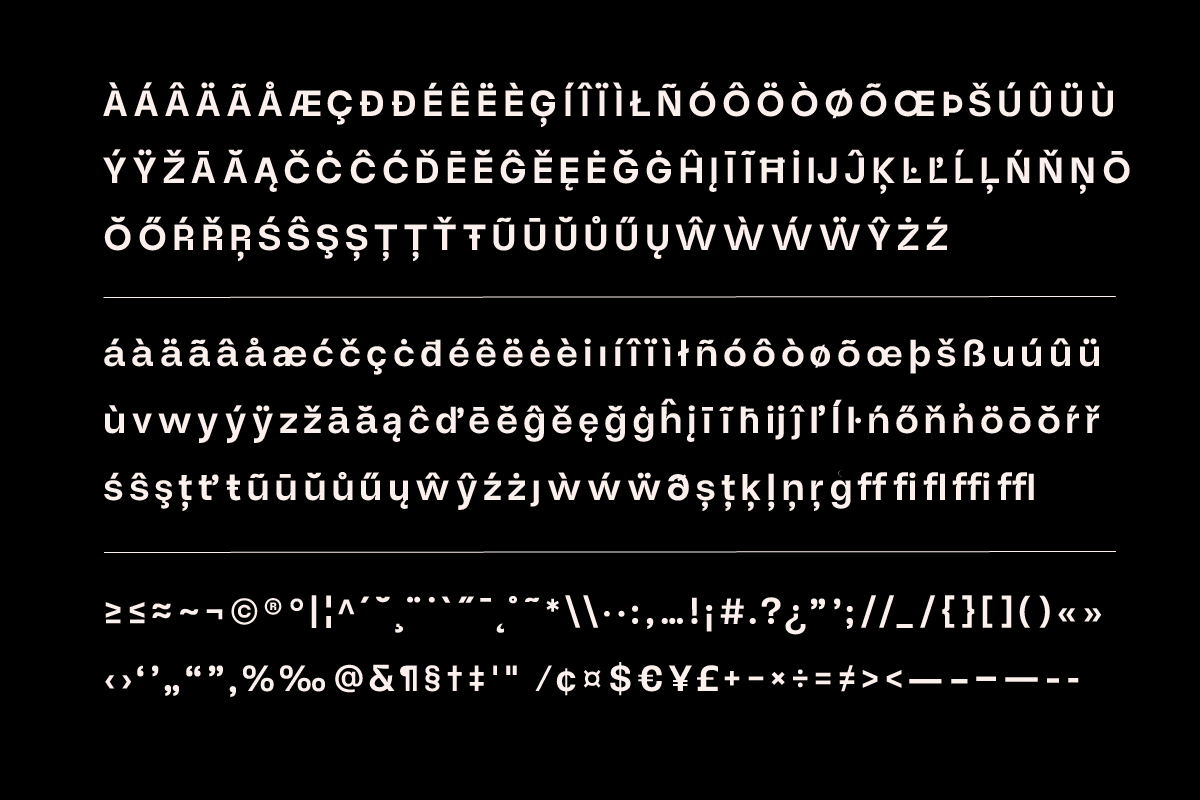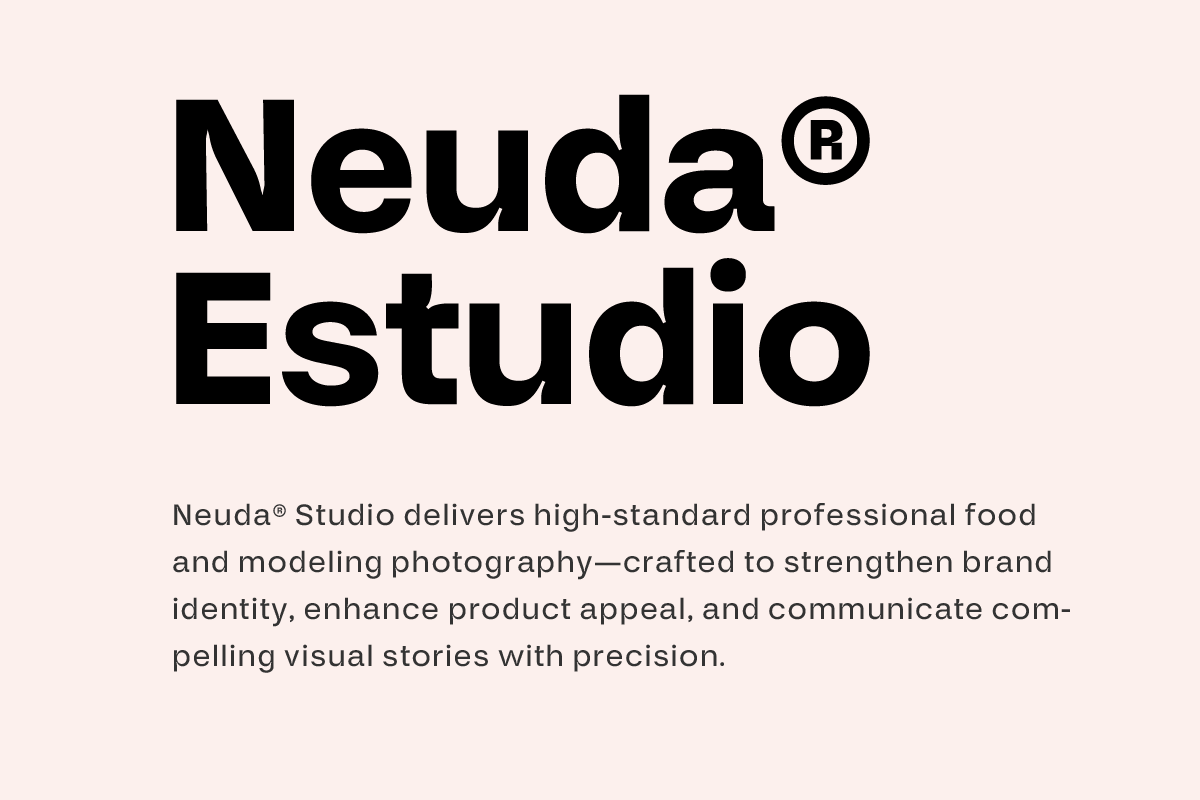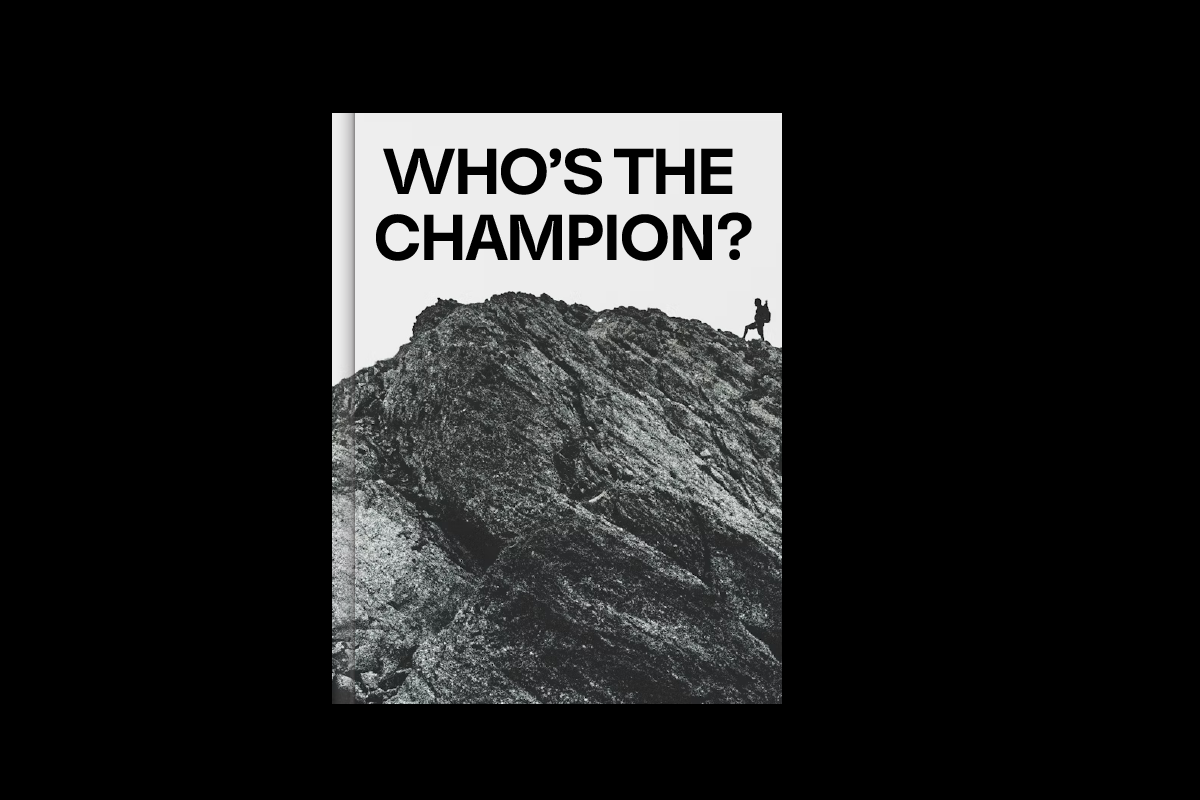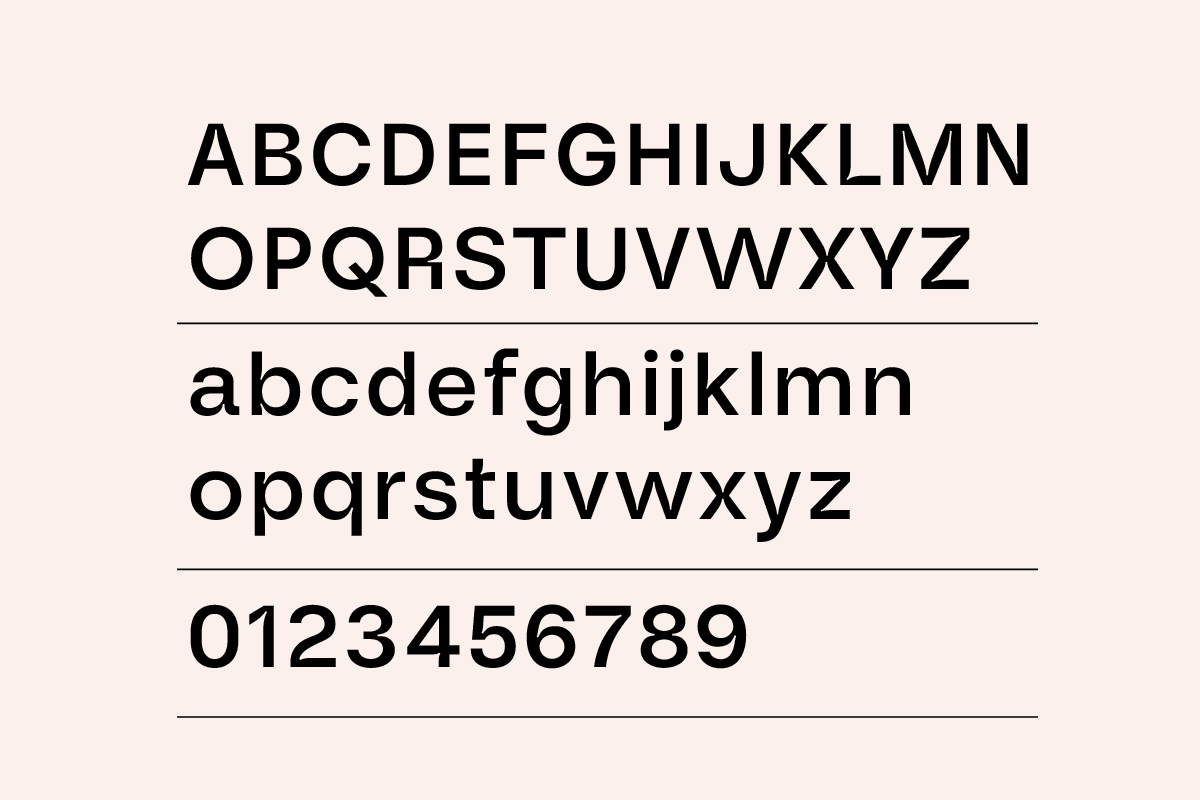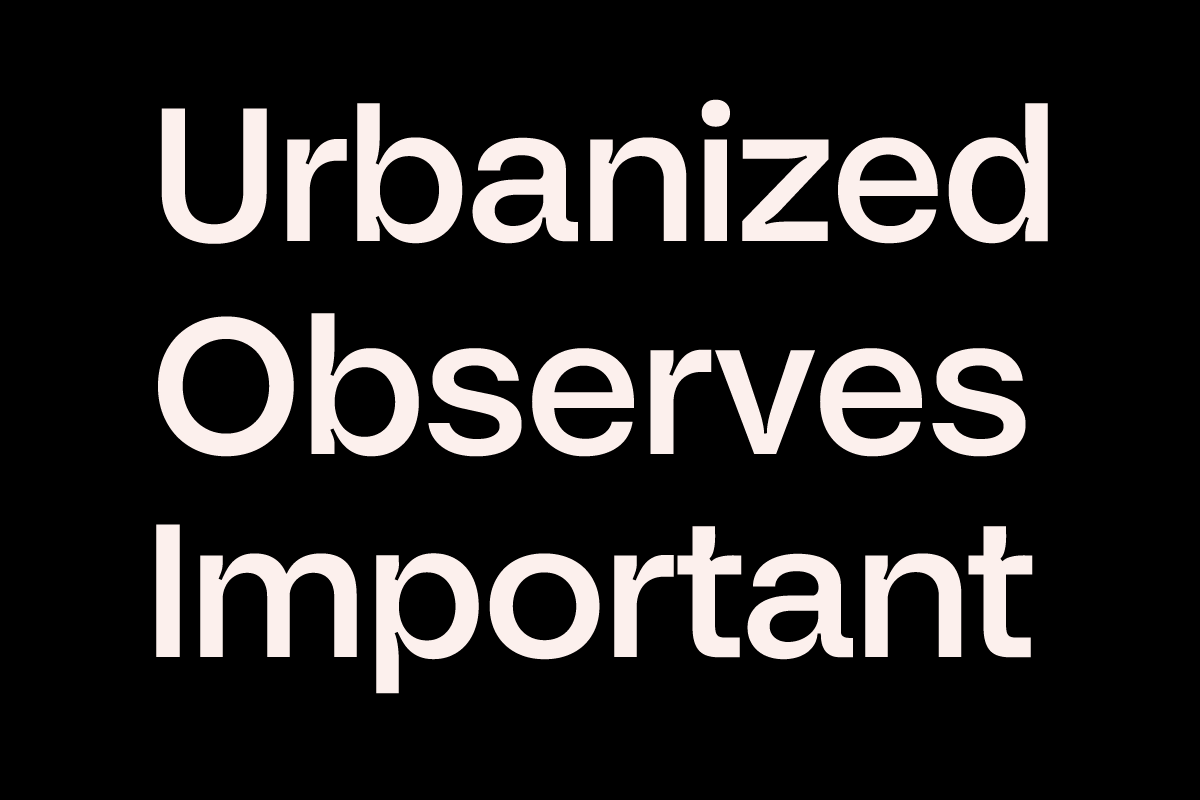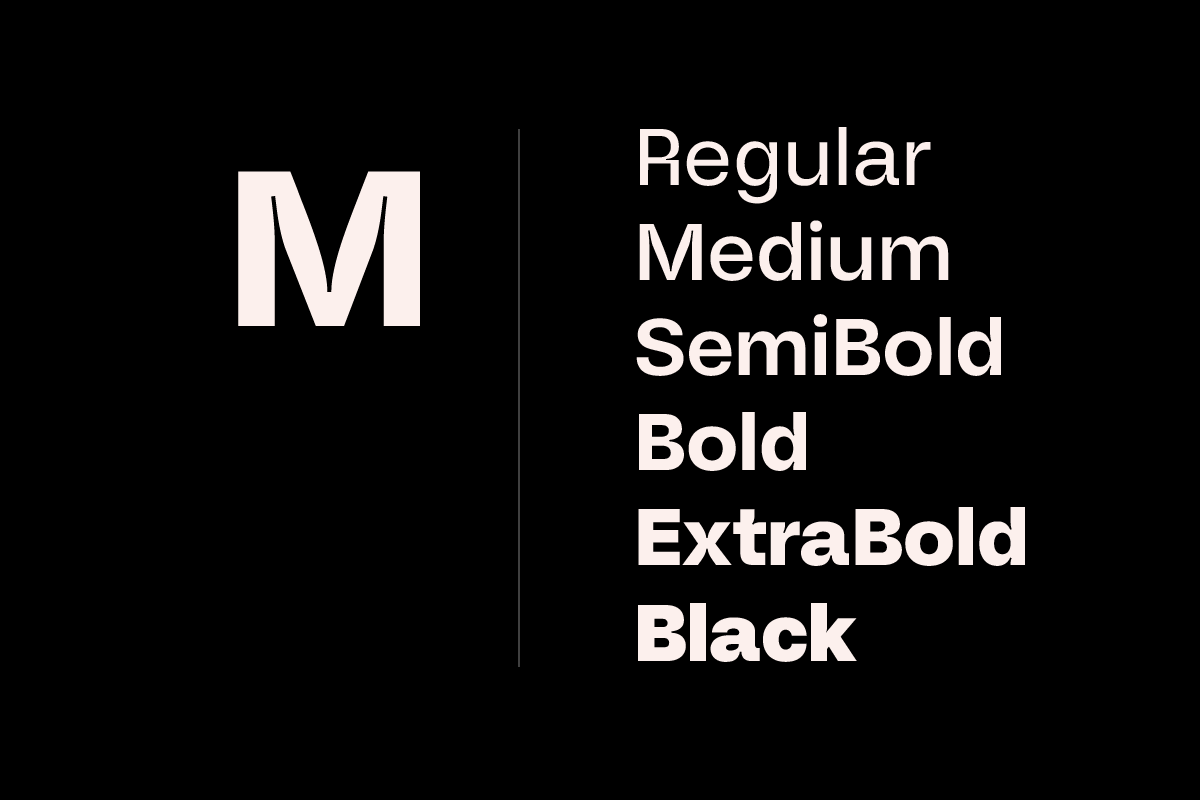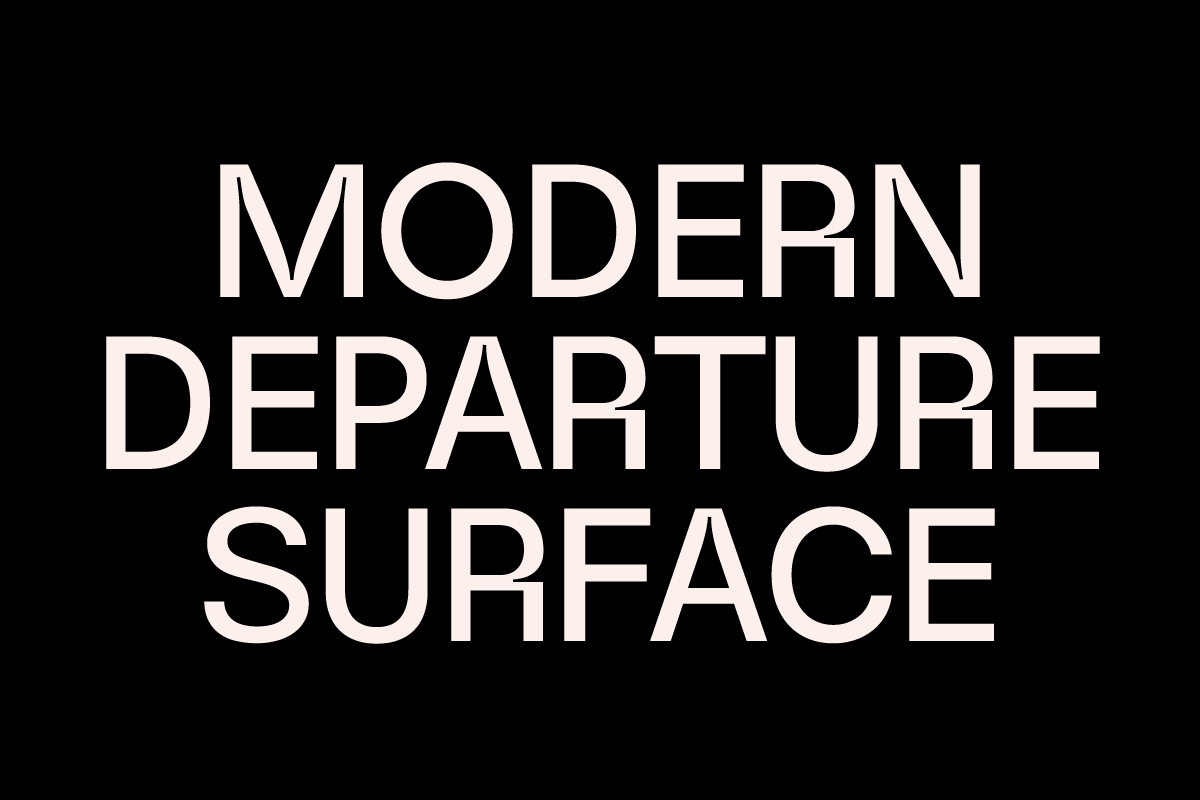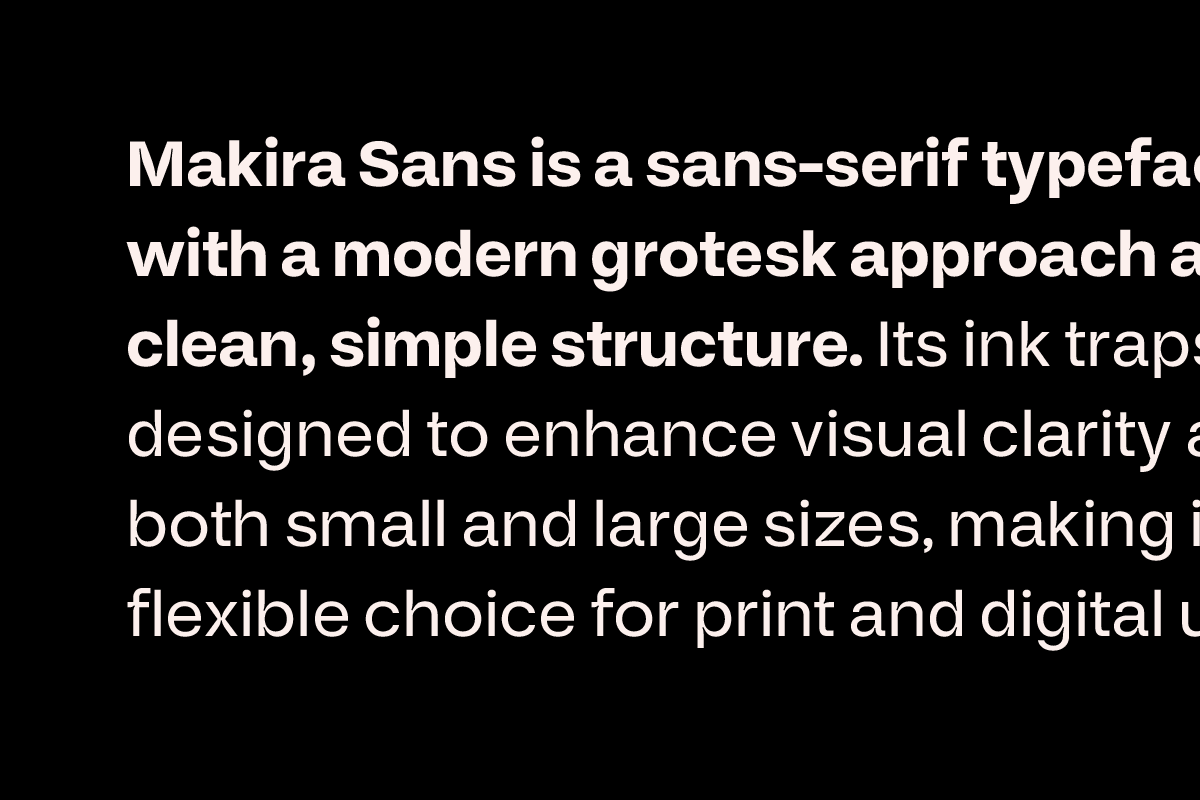
Makira - Sans Serif Family
Makira Sans is a modern grotesk sans-serif font designed for professional designers, creative agencies, and web developers. Featuring a clean and simple structure with functional ink traps, this typeface ensures excellent readability and visual clarity across various sizes.
Makira Sans is ideal for a wide range of design projects, including branding, logo design, editorial layouts, web design, UI/UX interfaces, advertising, and both print and digital applications. Its modern grotesk character delivers a professional, minimal, and versatile look suitable for contemporary visual identities.
- Clean and simple letterforms
- Functional ink traps for better readability
- 6 font weights ( Regular to Black )